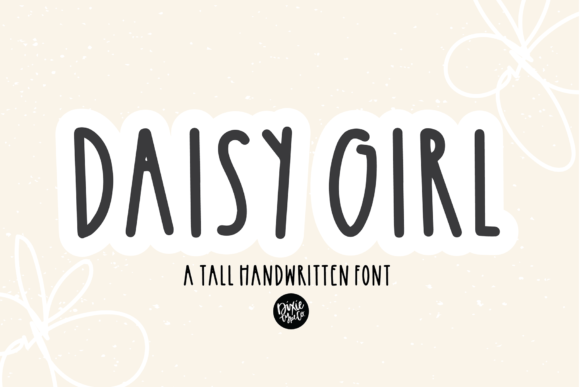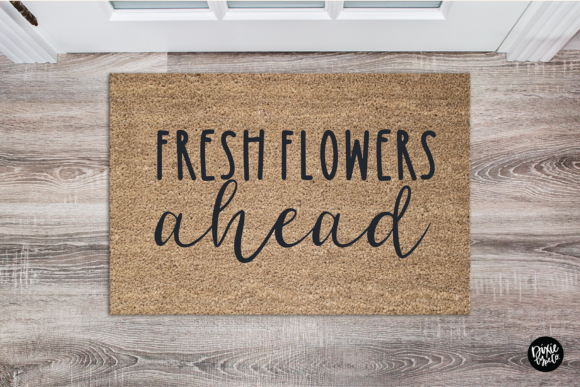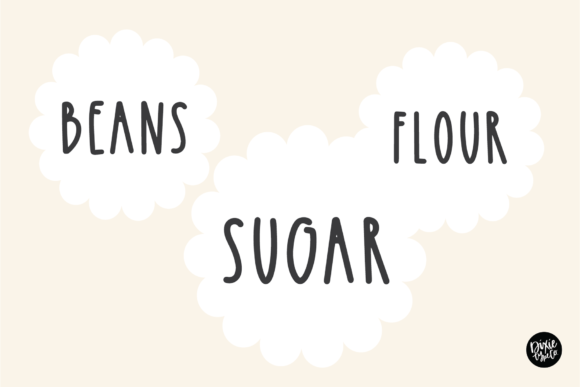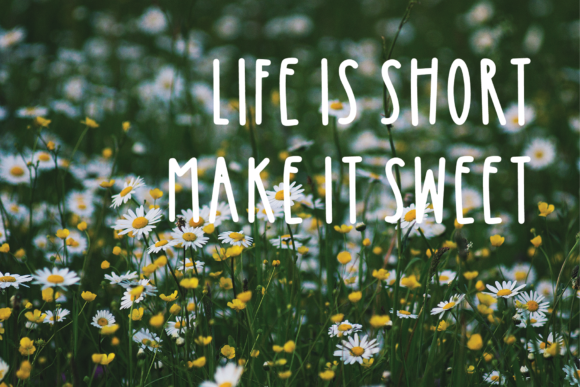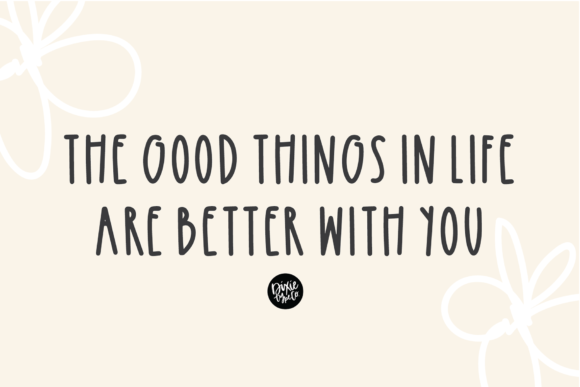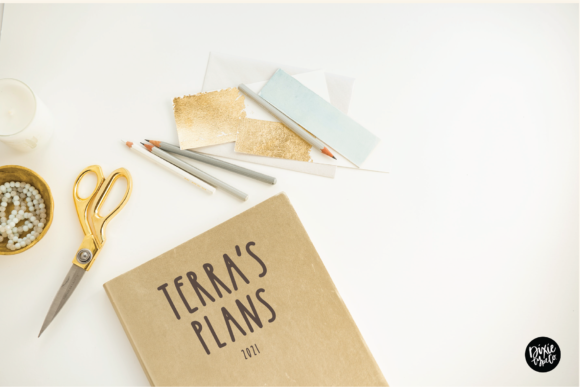
Daisy Girl Font
About Daisy Girl Font
Daisy Girl is a fun and quirky handwritten font. Its simple, tall lettered style makes it fit for a wide range of contexts. Get inspired by Daisy Girl and brighten up your projects!